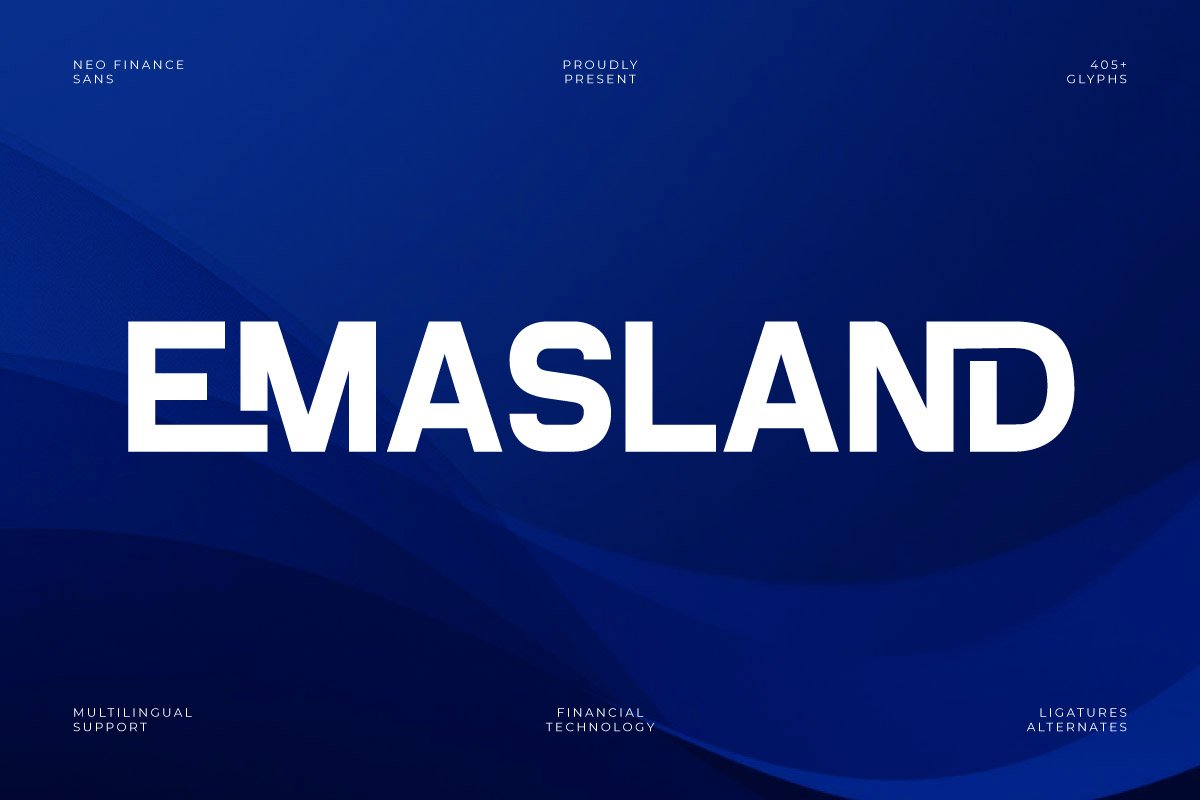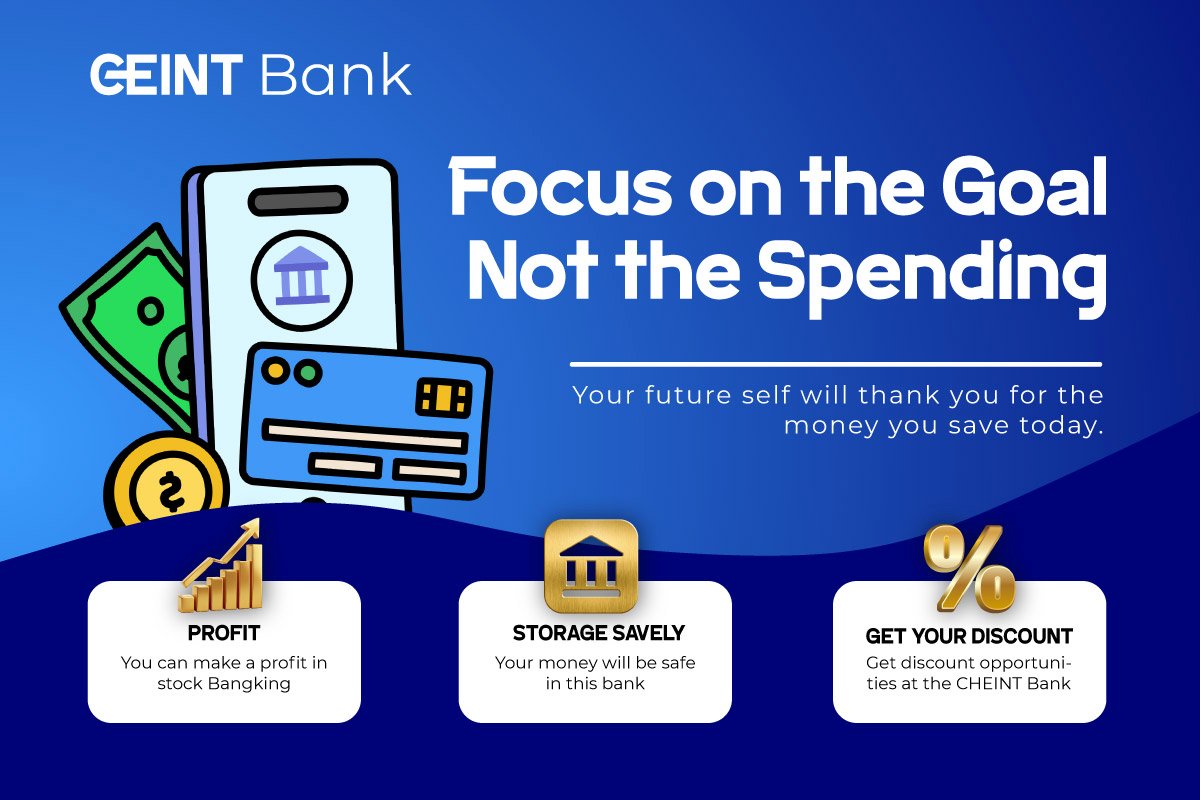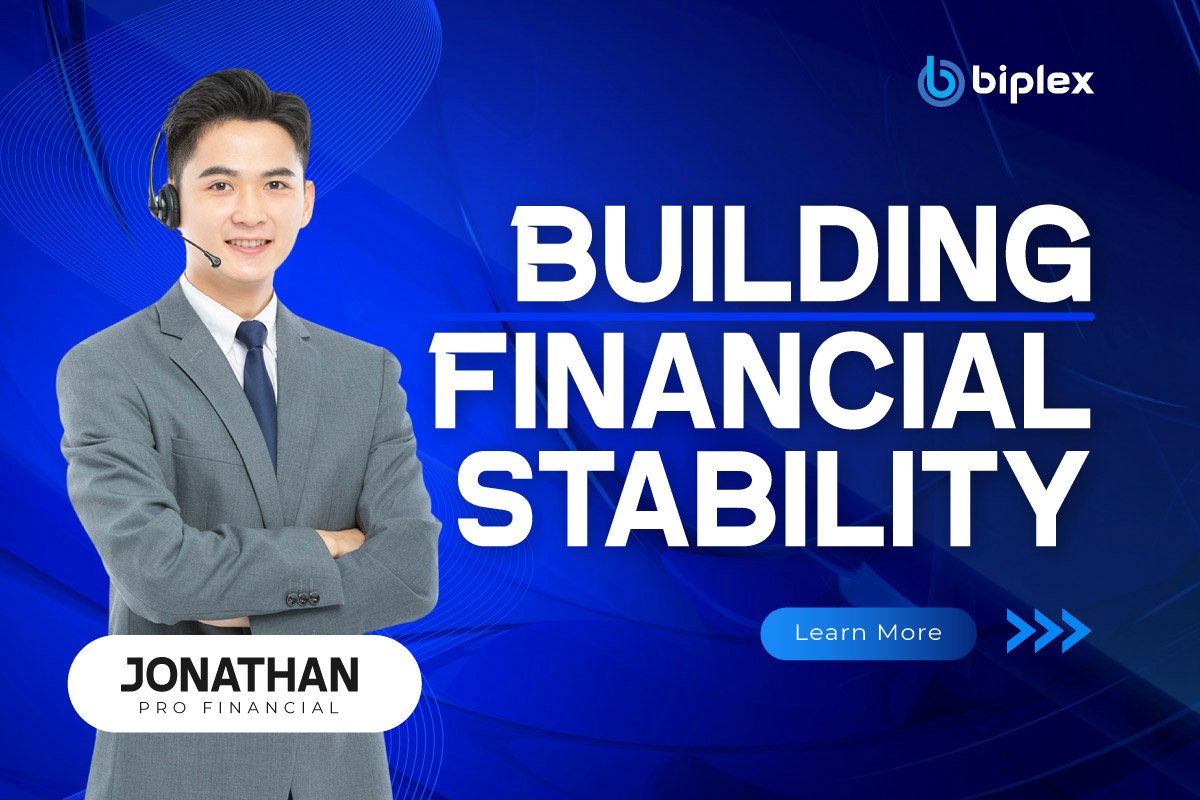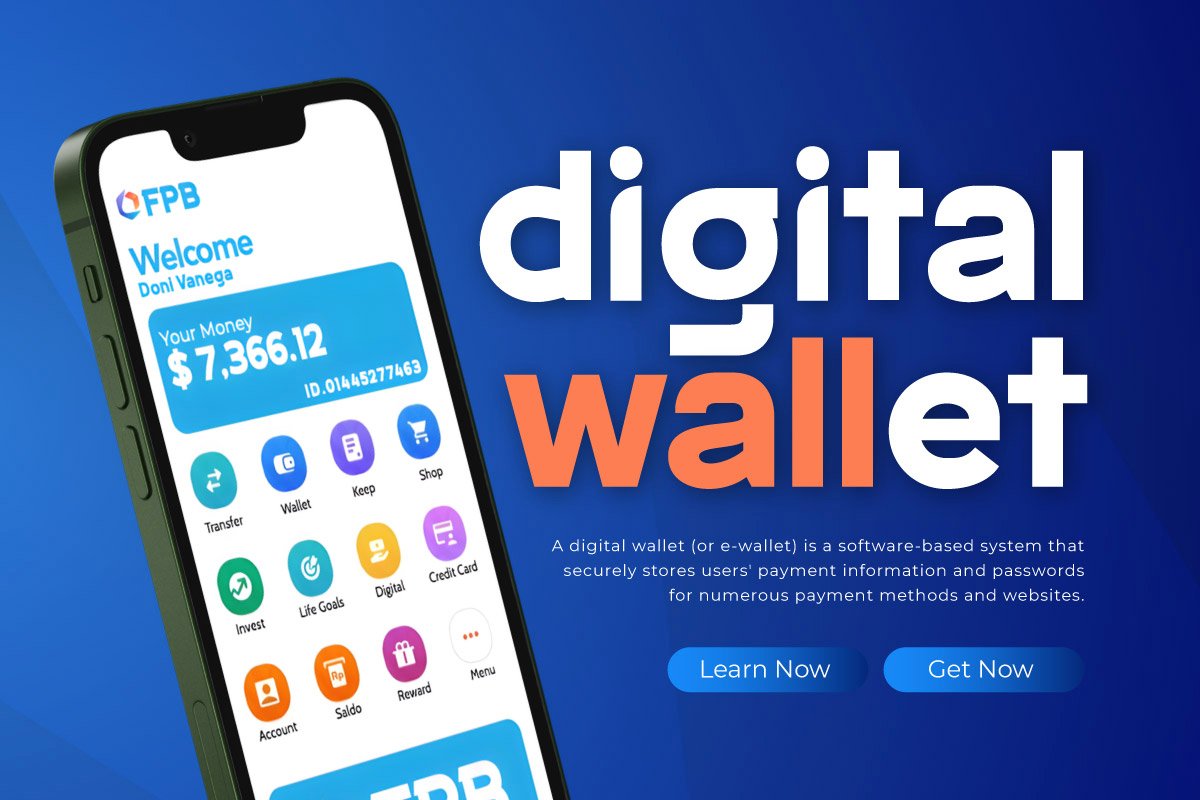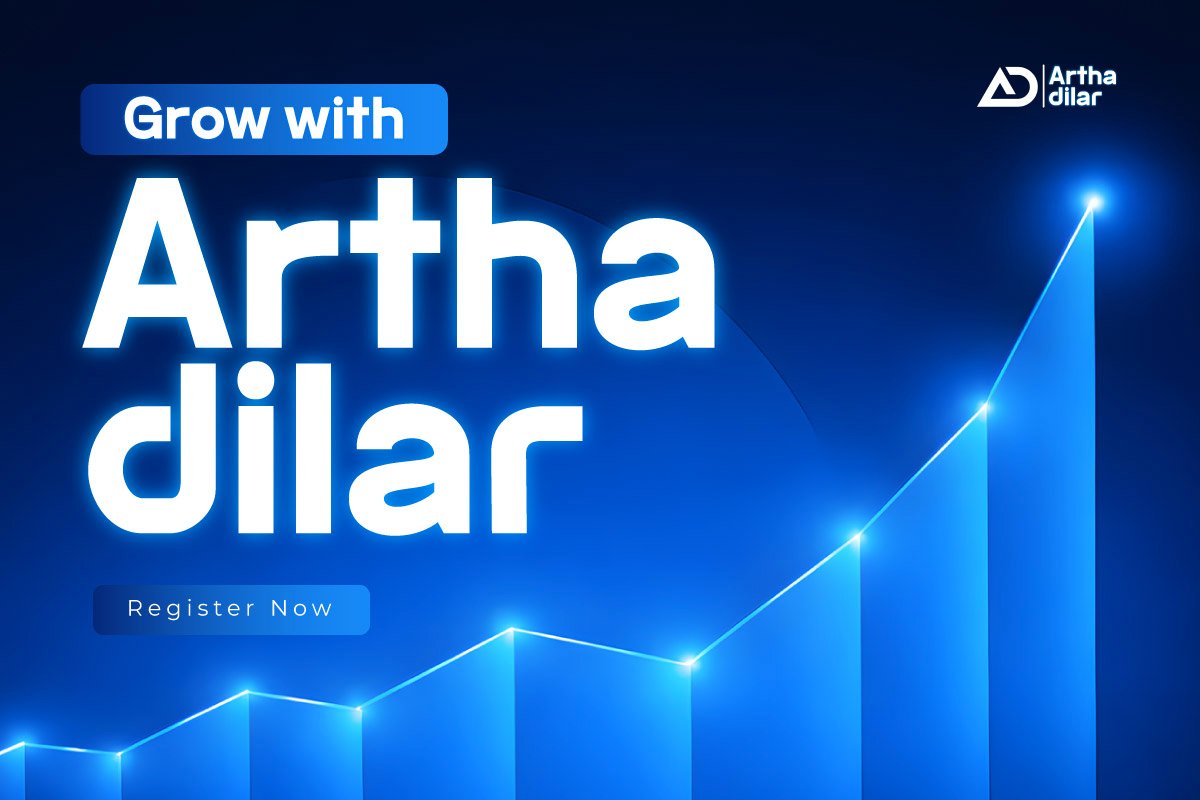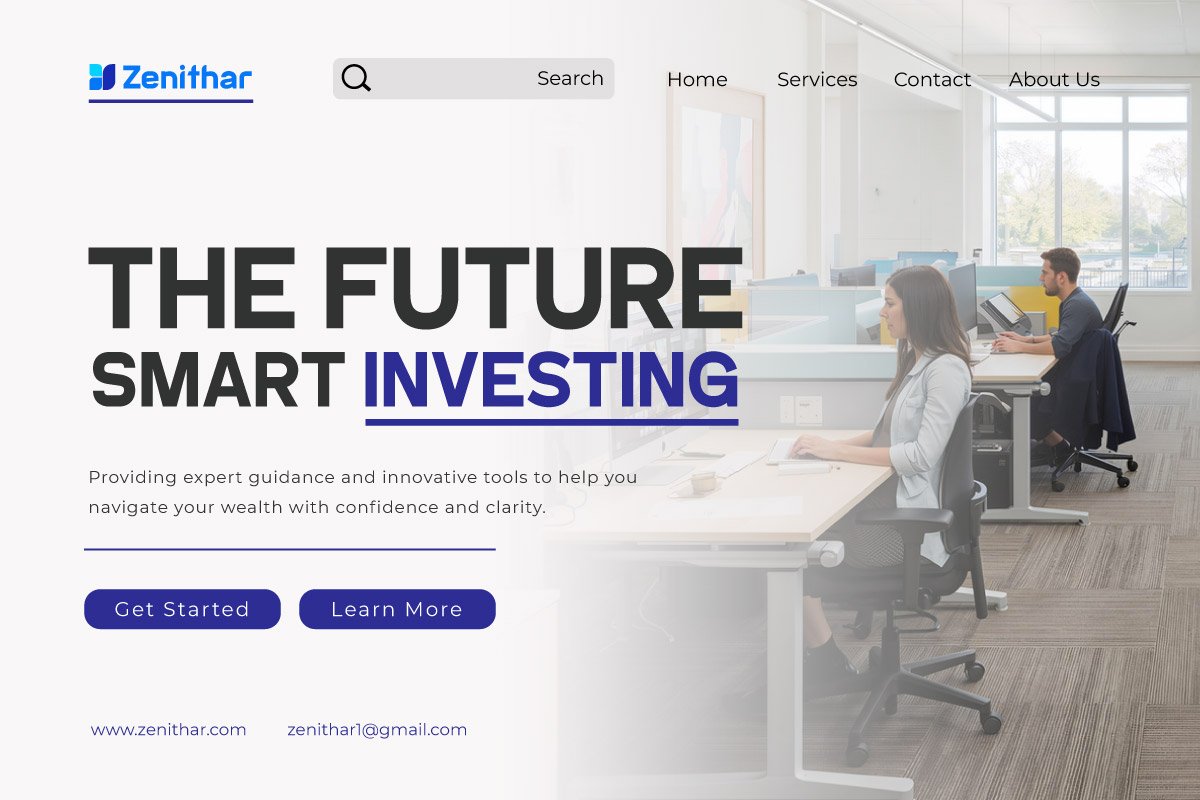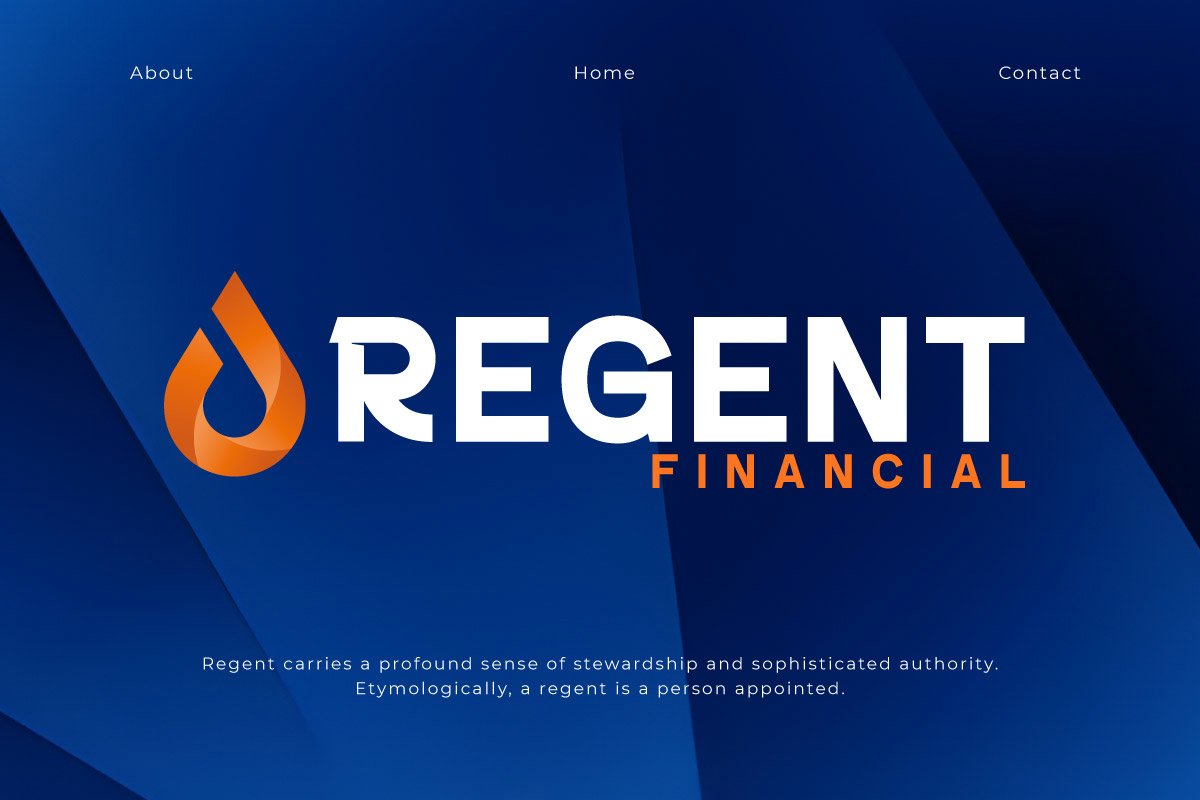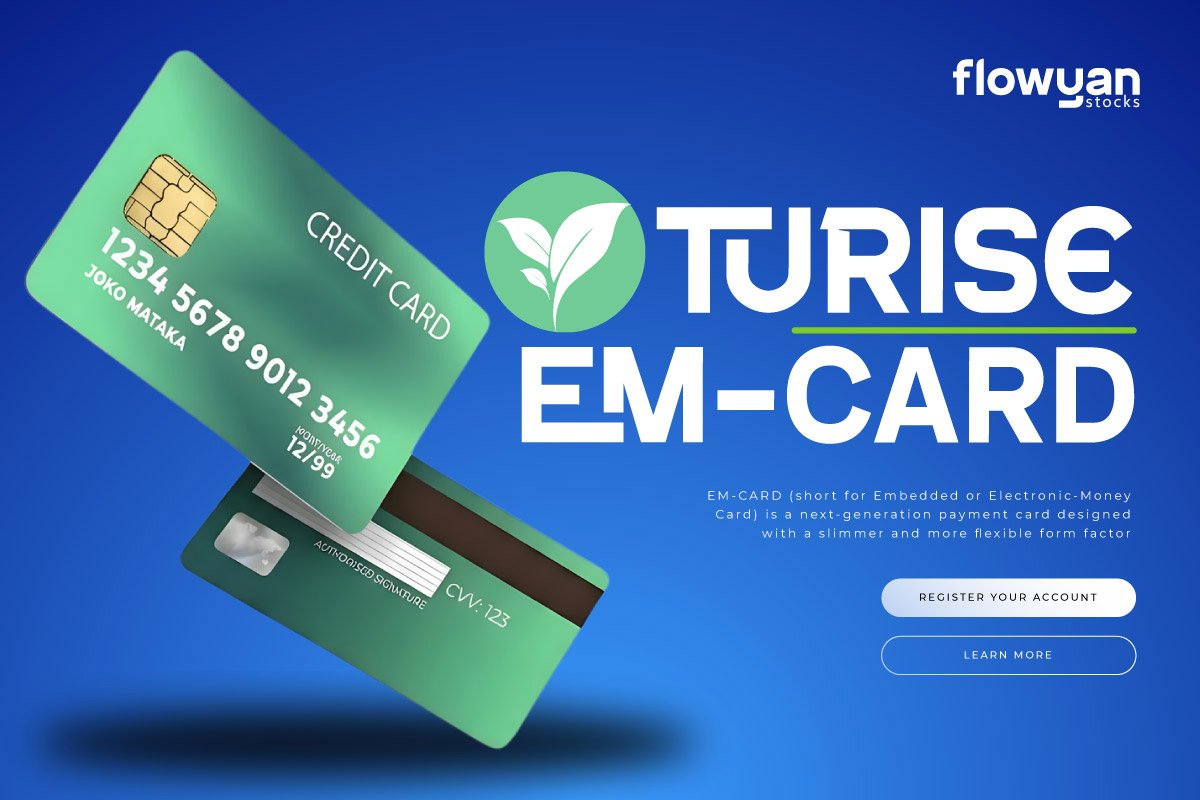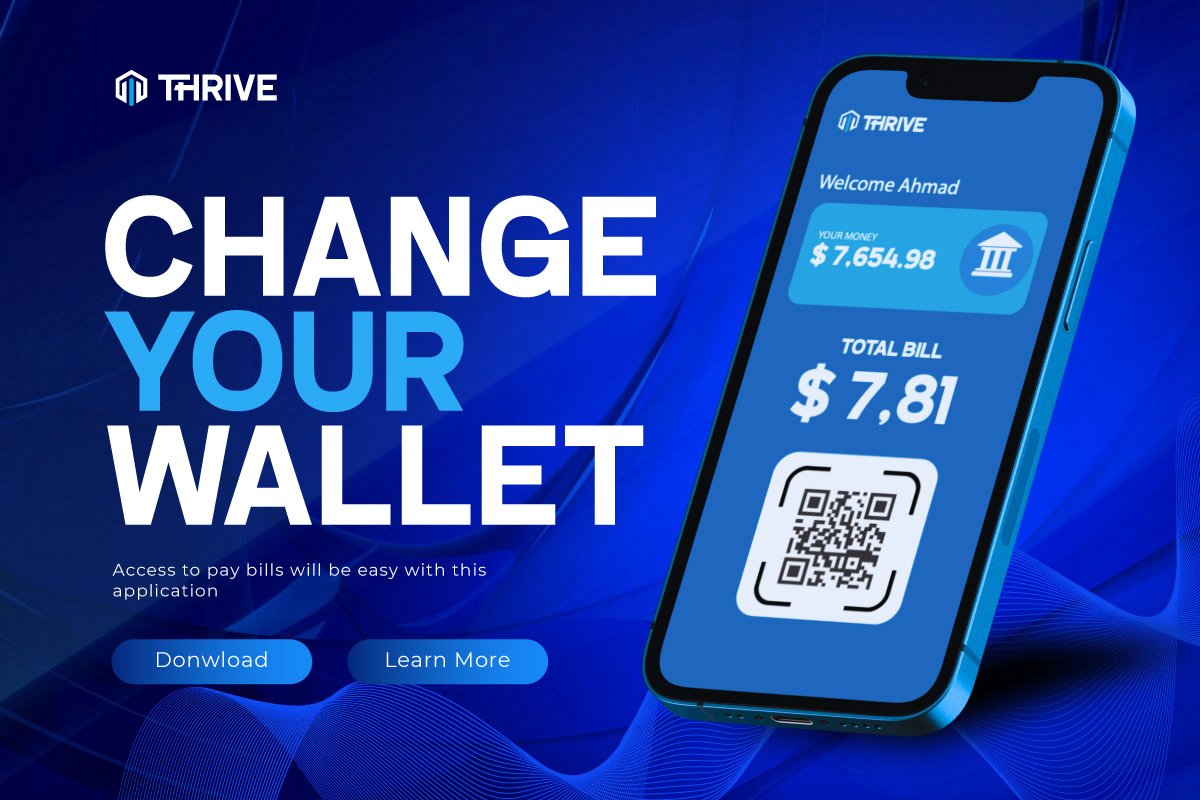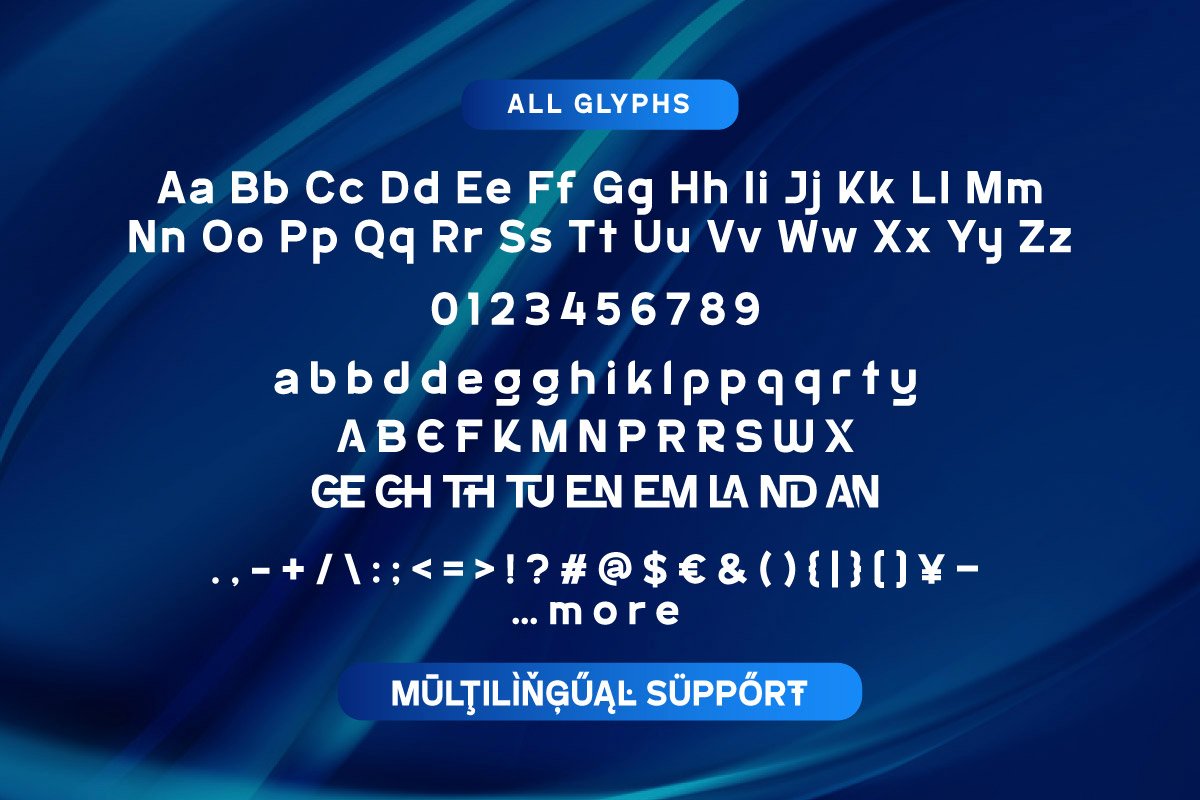
Emasland – Neo Finance Sans
Emasland is a Neo Finance Sans typeface designed to strengthen visual identities within the Fintech and digital banking industries. With a clean and modern geometric structure, this font delivers a professional and premium impression. Its characteristics are ideal for building user trust in a Modern Financial Ecosystem that demands a stable and sophisticated visual appearance.
The font design prioritizes high precision to ensure an optimal Seamless Transaction UI experience on digital devices. Inspired by global banking aesthetics like the Revolut and BCA Digital styles, Emasland offers exceptional readability for dashboard elements, balance figures, and micro-text within applications. Its balanced letter structure helps create a clean, functional, and trustworthy user interface.
As a future-ready financial typography solution, Emasland features 405+ glyphs and stylistic alternates for extensive design flexibility. The font is highly effective for corporate branding, crypto platforms, and virtual debit cards requiring a strong yet minimalist character. Emasland is the perfect choice for designers aiming to bring modern banking visual standards to every digital innovation project.
Multilingual Support, including 85 languages: